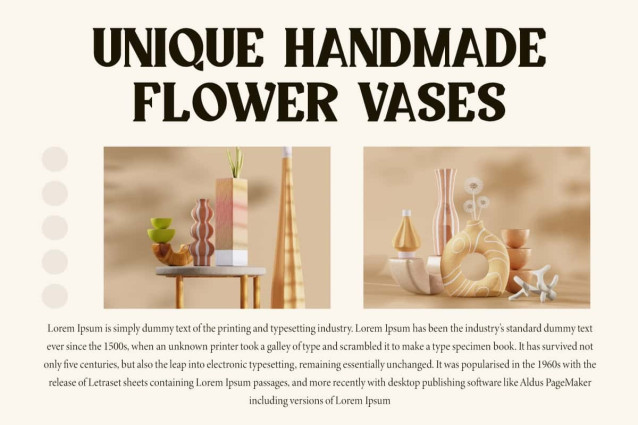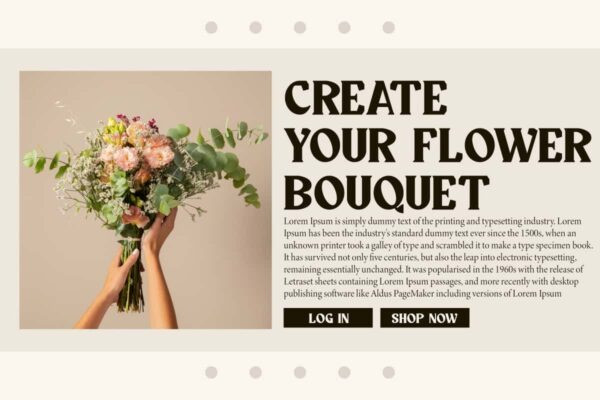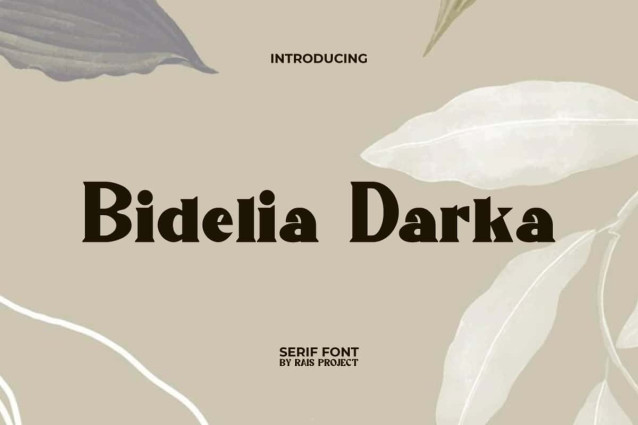
Bidelia Darka Font
Bidelia Darka Font is a cute special display serif font with bold and sharp letter. The serif style make it much unique and clean for your design. It will be good for any designs, such as signage, advertisement, brand image, custom design, invitation, label, marketing material, poster, product packaging, quotes, stationery, website page, and more!
Bidelia Darka Font includes a full set of ALL CAPS for Uppercase and Lowercase Letters, Numerals, and large range of Punctuation. This adorable font will be suitable for various industries, such as fashion, cafe, event or festival, florist, bakery and pastry, printing, publishing, photography, etc.